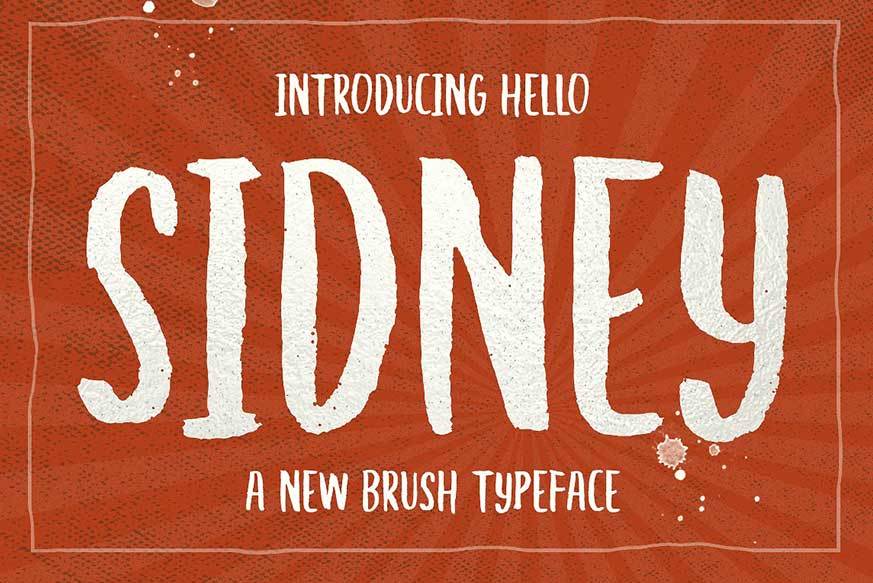
Hello Sidney Font
Hello Sidney Font is a very cool brush font that is made for your various personal and big business design needs such as; design logos, business cards, advertisements, etc.